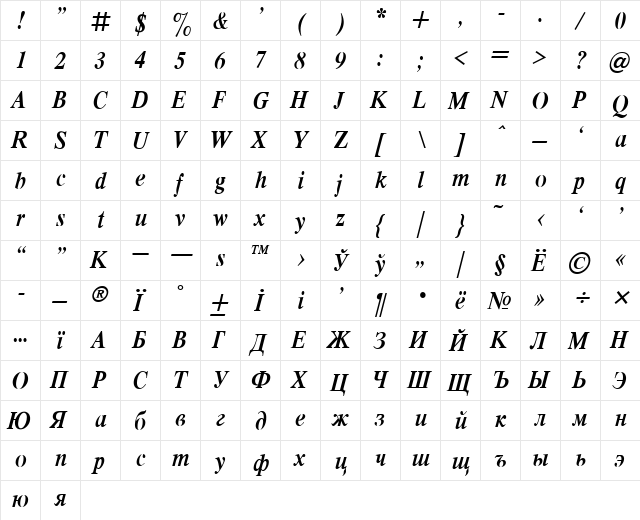
Respect Narrow Bold Italic Font Preview
Design Context for Respect Typeface
Respect takes a measured approach to typography — its balanced proportions and neutral character make it a reliable workhorse for both digital and print work. The dynamic lean of this cut emphasises speed and emphasis in any layout. Its bold stroke weight gives it real presence on the page. The condensed width makes it efficient for tight spaces without sacrificing legibility.